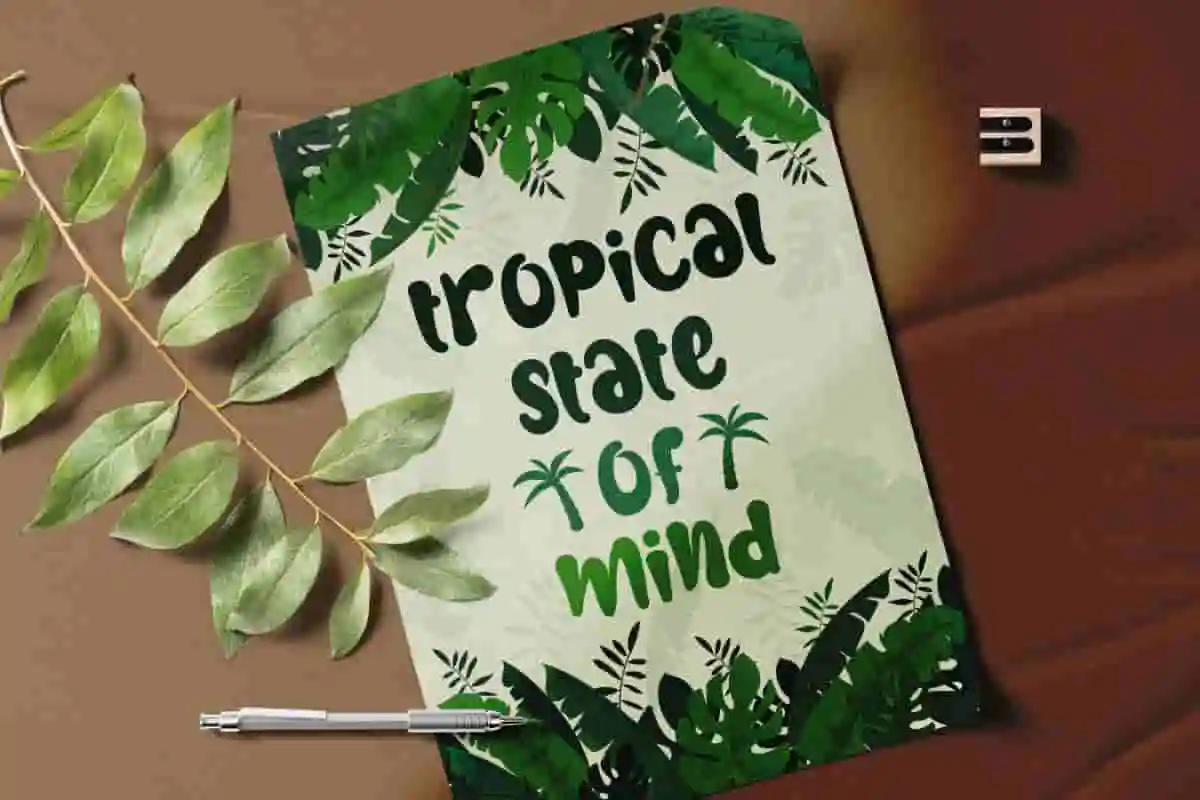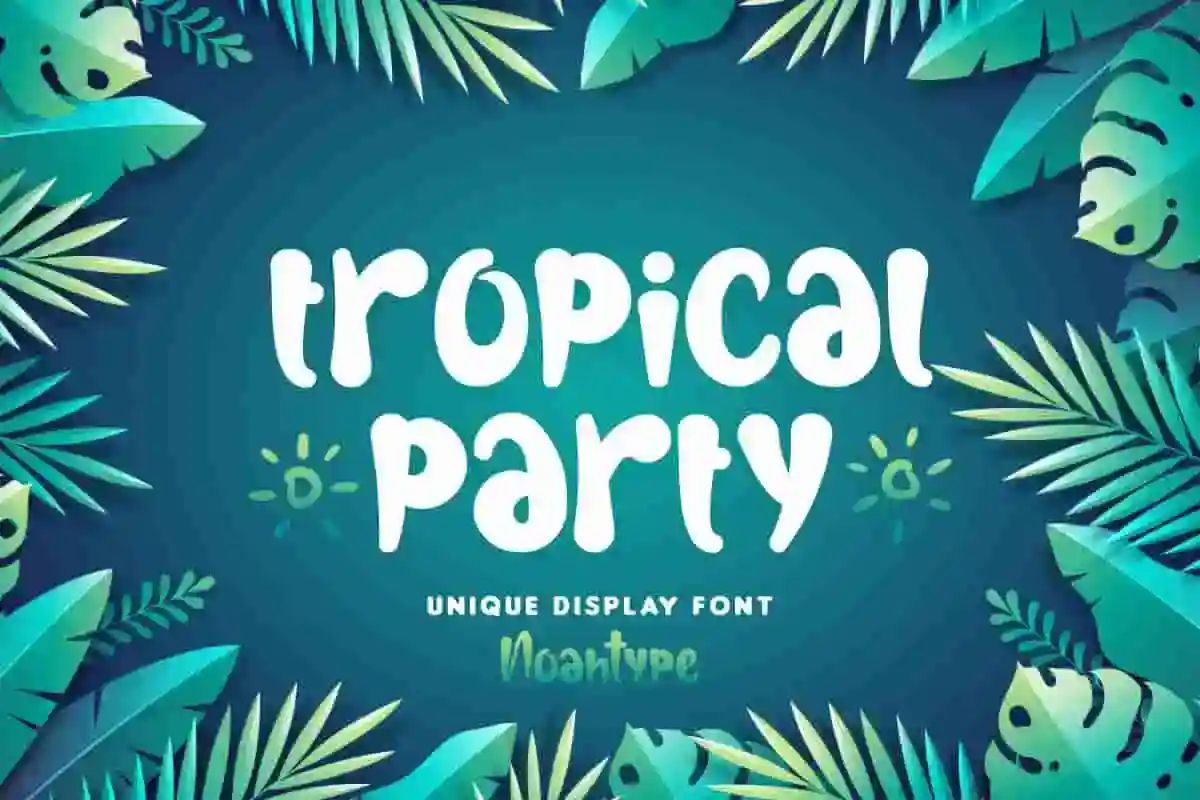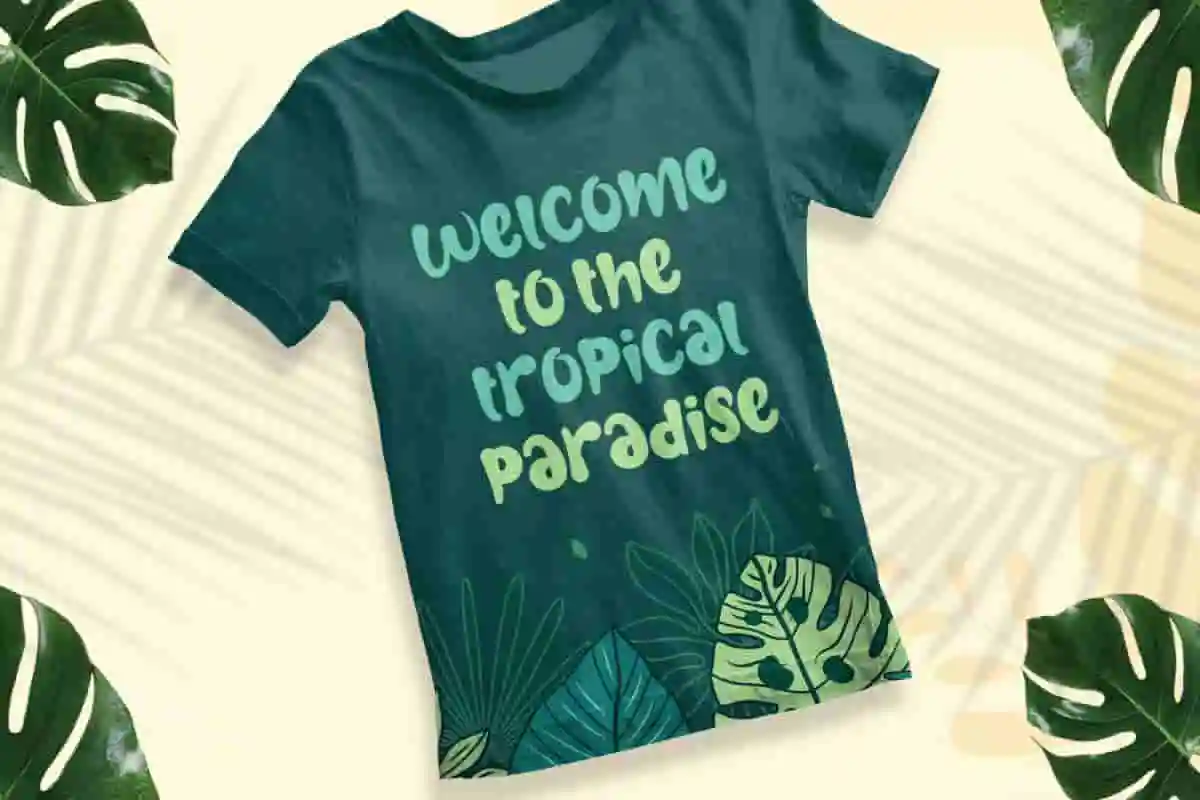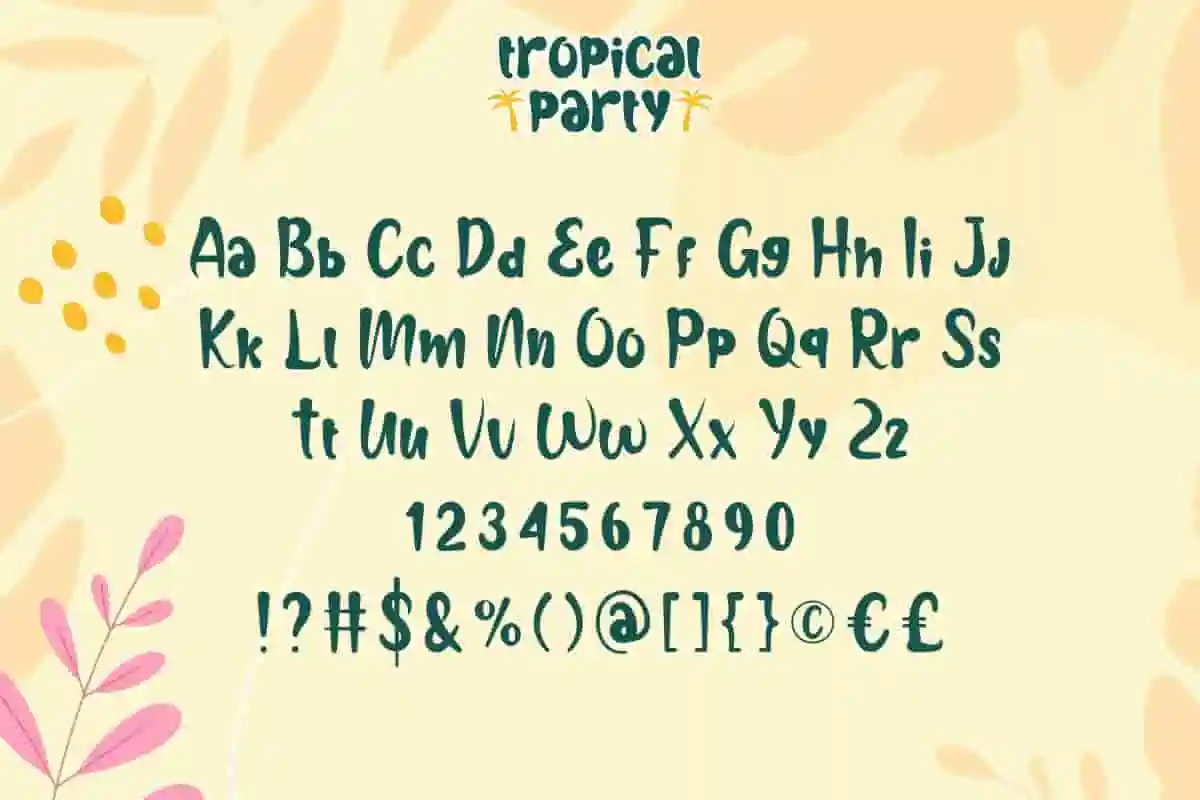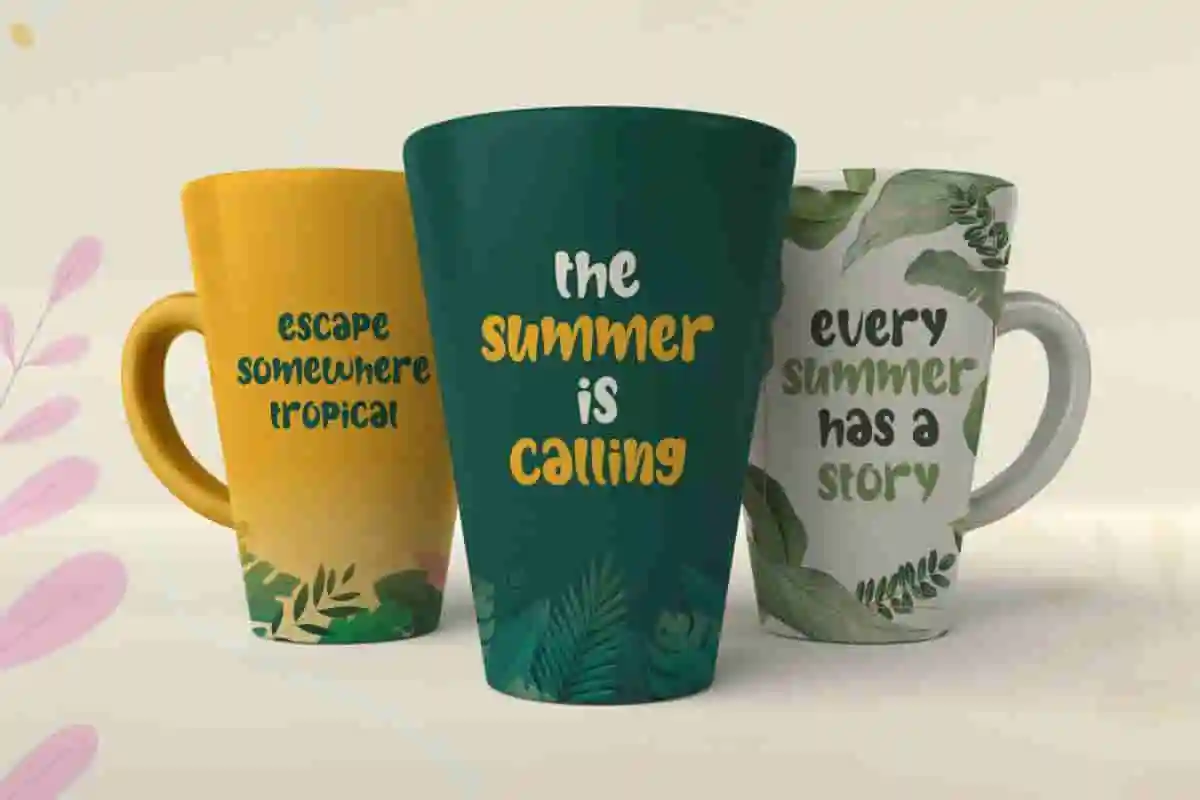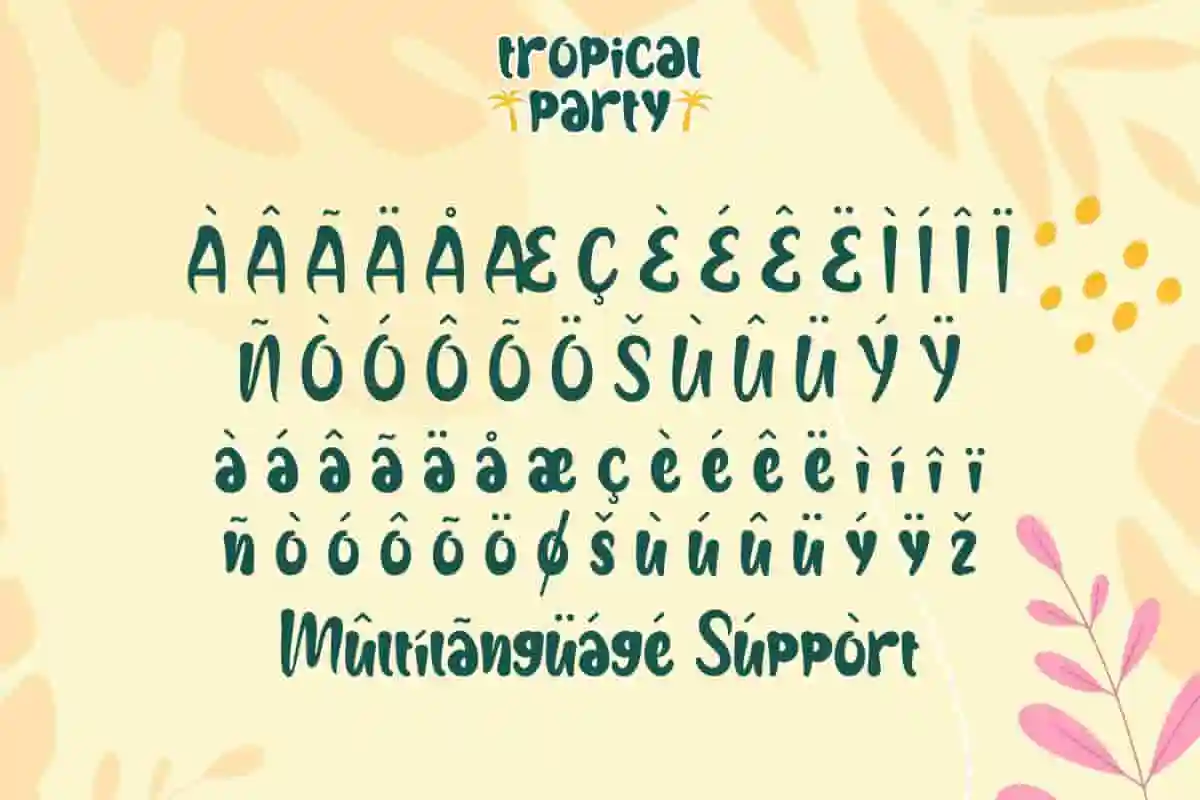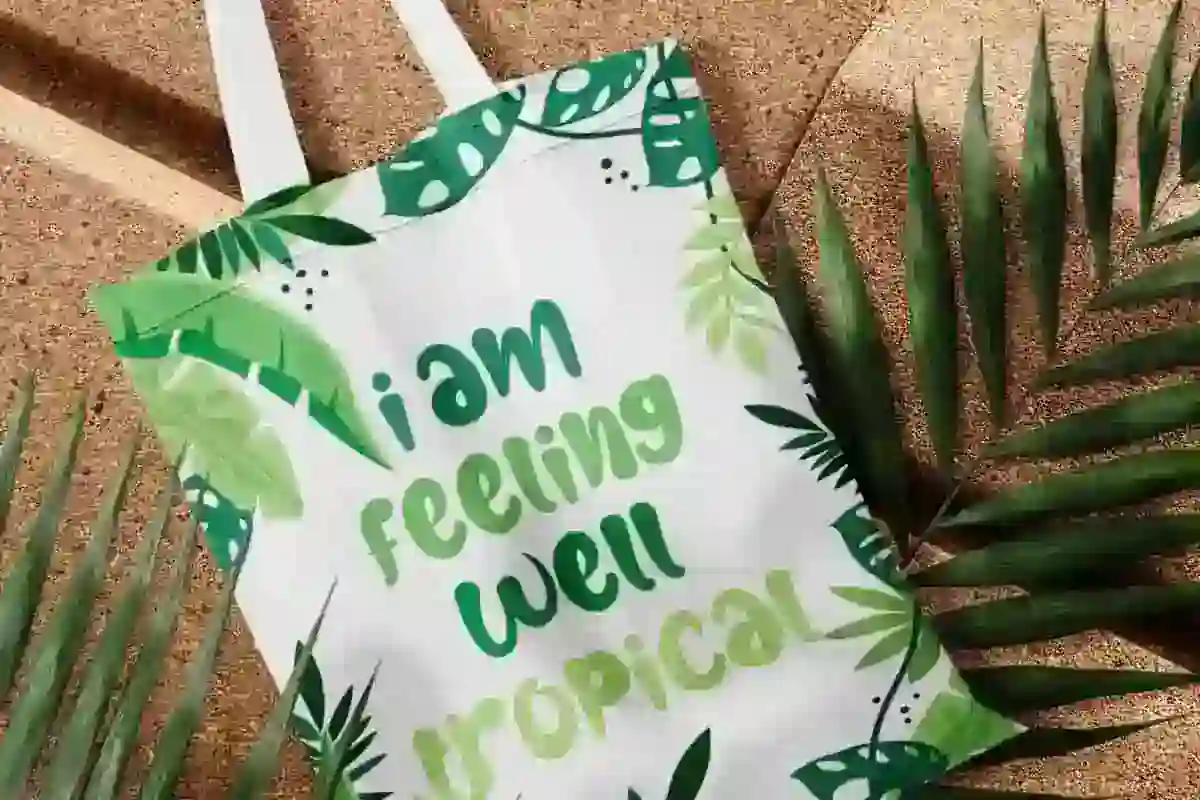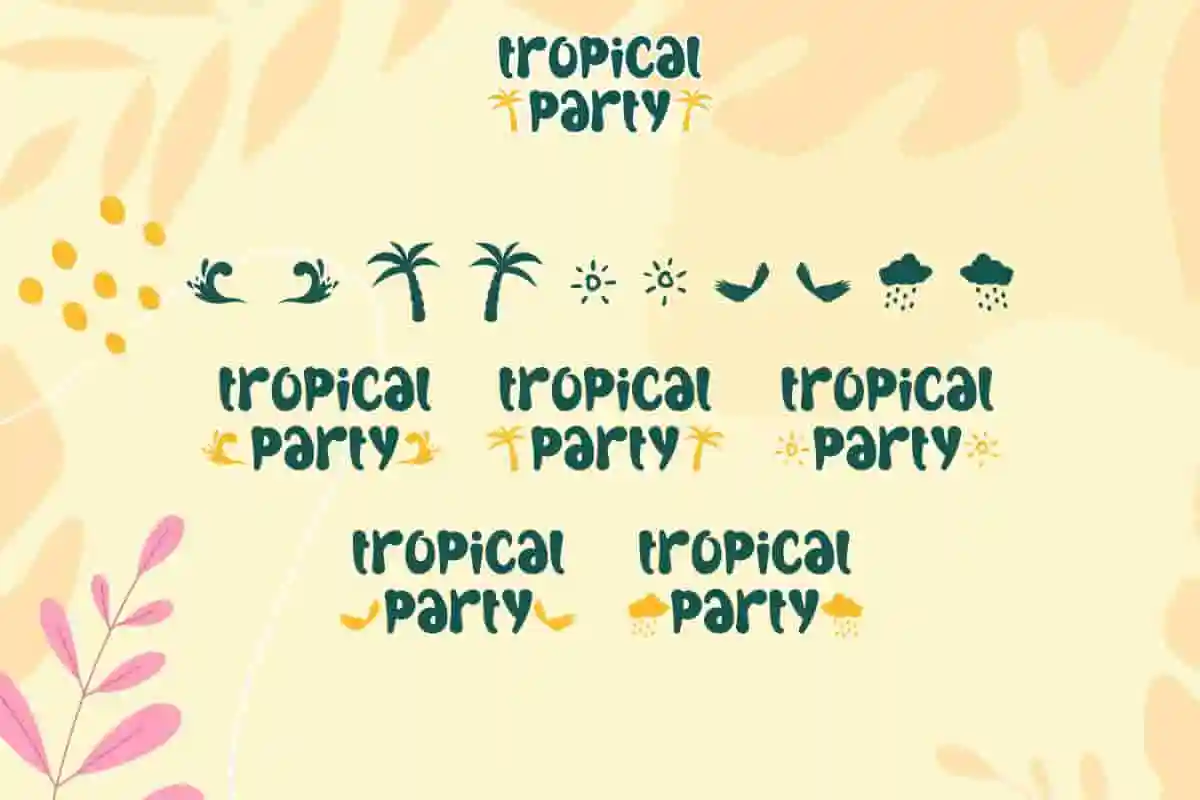
Tropical Party Font is a playful and fun display font with kids, comic and cartoon theme . This font will bring freshness in summer mood making it suitable for many industries, such as advertisement, café, craft, drink, fashion, food, homeware, publishing, and many more!
Tropical Party Font includes full set of Uppercase and Lowercase Basic Characters, Numerals and Punctuation, and Swoosh to create a fresh look by adding more stylish fonts to enhance your awesome projects! This font would be perfect for billboard, branding logo, brochure, custom design, headline, menu, product packaging, website page, etc.
Whether you’re creating event posters, branding for a summer product, social media graphics, or party invitations, Tropical Party Display Font will give your designs a fresh, adventurous, and unforgettable look. Its unique letterforms are both fun and stylish, making it the perfect choice for projects that need to stand out.
Tropical Party Font supports multilingual languages (including multiple currency symbols) with a simple installation, also have swoosh characters options that you can select and use to make it standout. The font will be ready to use both on Windows machine or Mac. It work well on Adobe software such as Illustrator, Photoshop and several other software.